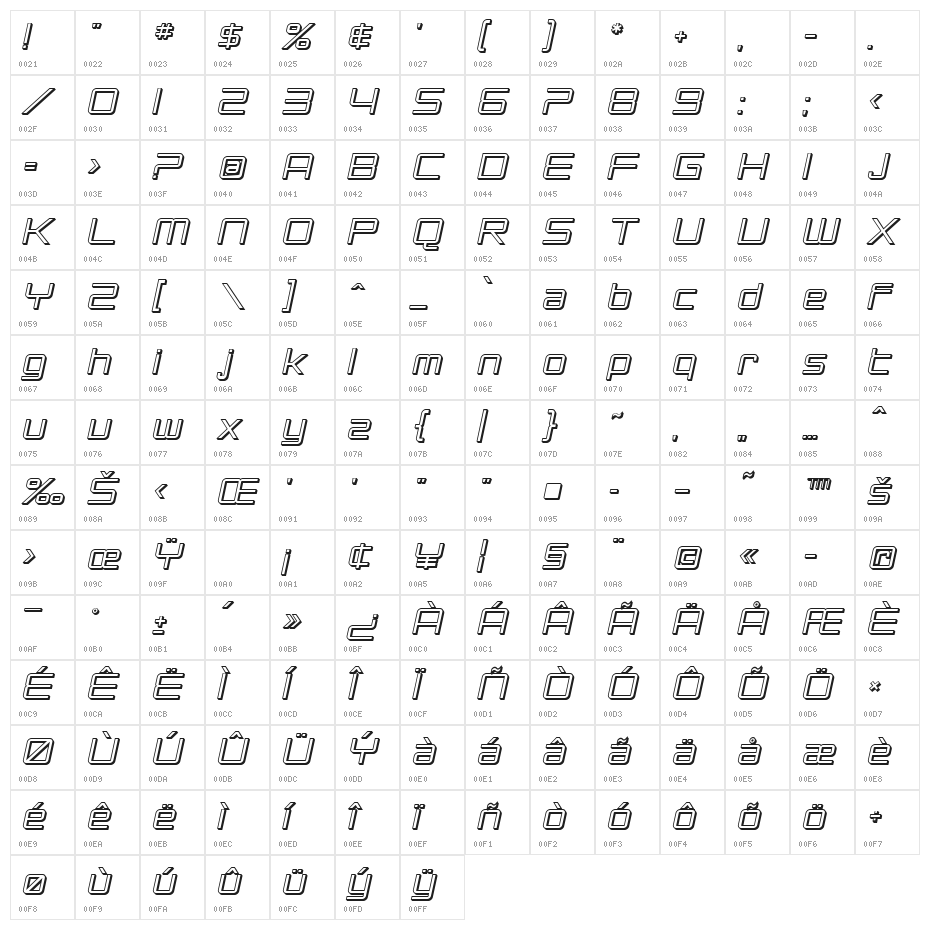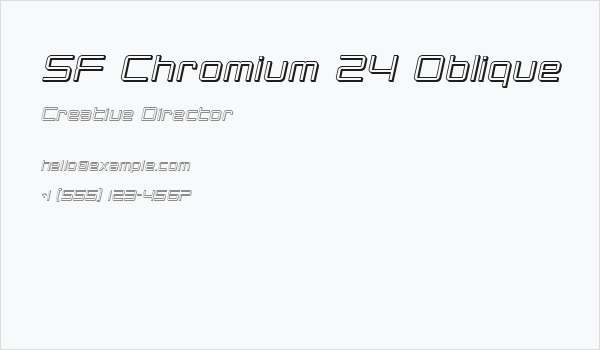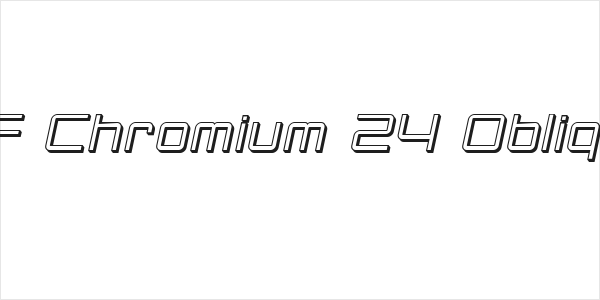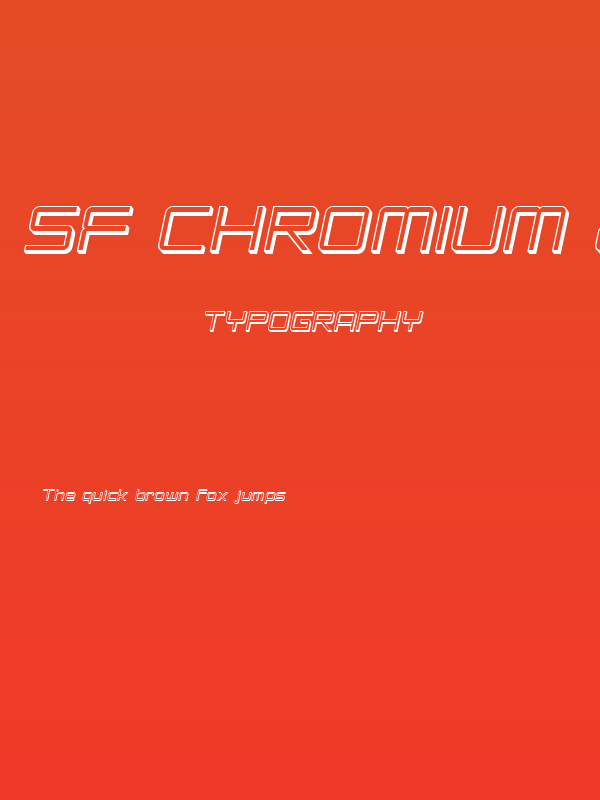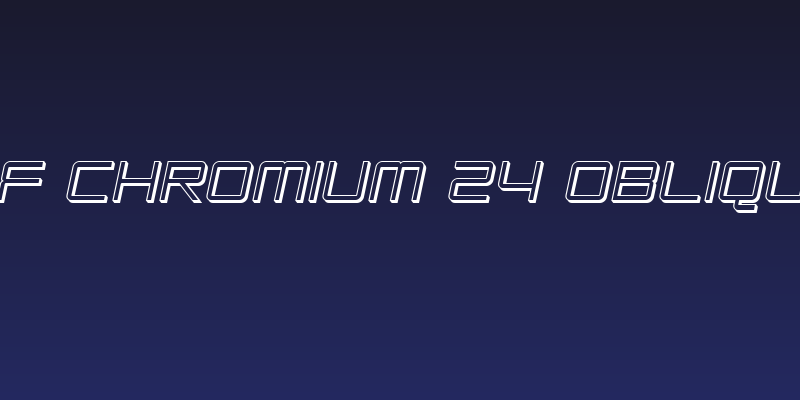
SF Chromium 24 Oblique Font
SF Chromium 24 Oblique Description
This font features a futuristic and geometric design with a distinct oblique slant, giving it a dynamic and forward-moving appearance. The characters are outlined, creating a hollow effect that enhances its modern aesthetic. Each letter and number is crafted with precision, maintaining uniformity in height and width, which contributes to its sleek and streamlined look. The font's open structure and clean lines make it highly legible, even at smaller sizes. Its unique style is both bold and sophisticated, making it suitable for a variety of creative applications.
| Proposed Projects | Ideal for technology branding, sci-fi themed designs, video game interfaces, and modern advertising. |